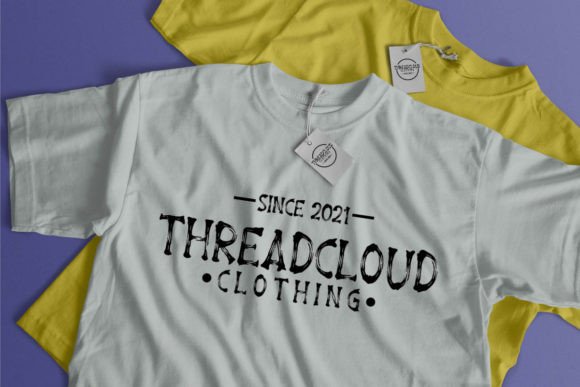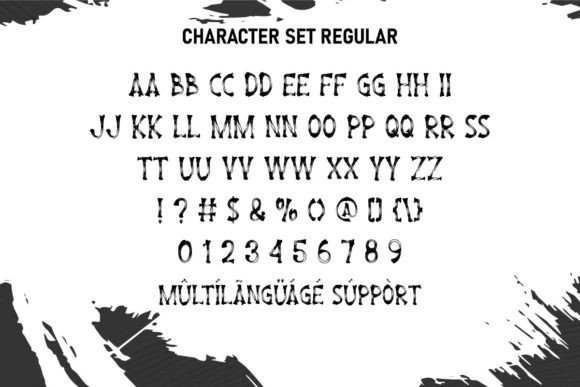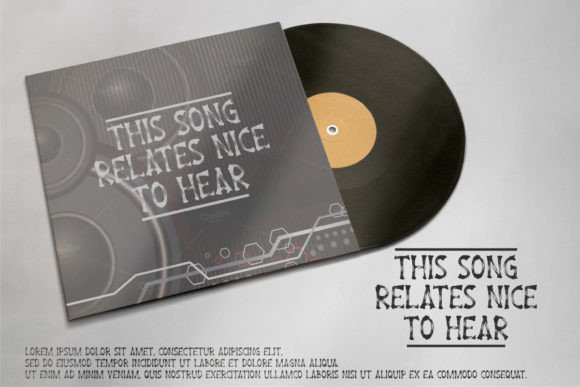
Introduction to Dark Secret Font
Dark Secret is a modern and attractive brush font that features thick and thin strokes for a natural, hand-painted look.
With its bold brush strokes, this font is perfect for making a statement, and its friendly curves give it a welcoming feel Its versatile design will make it a great addition to any project.
Key Features of Dark Secret Font